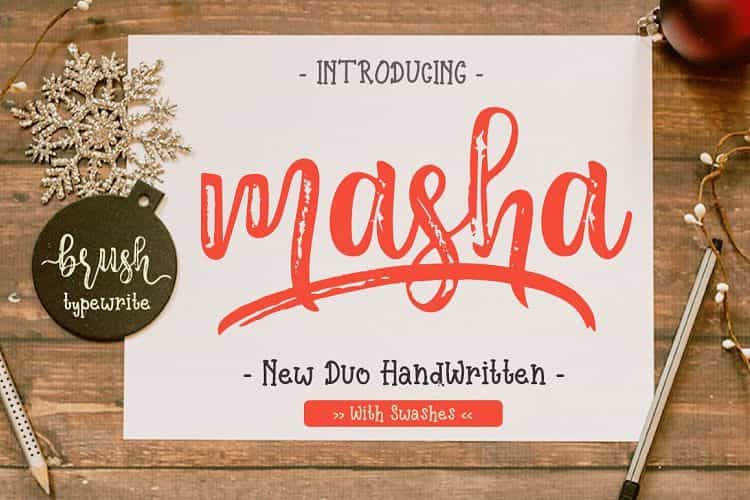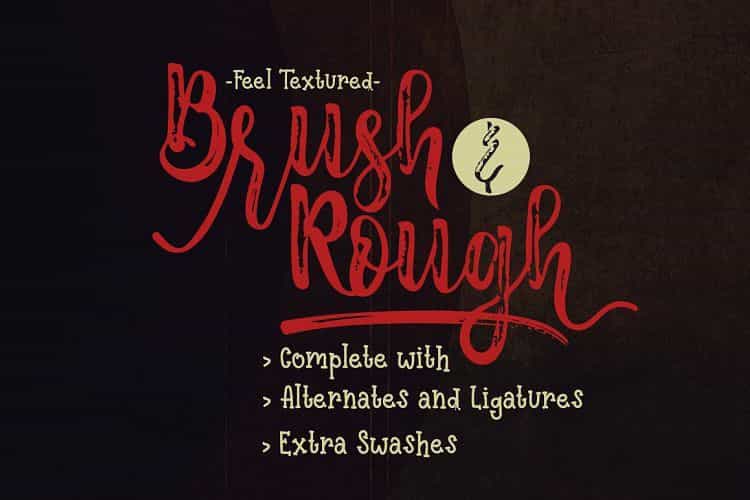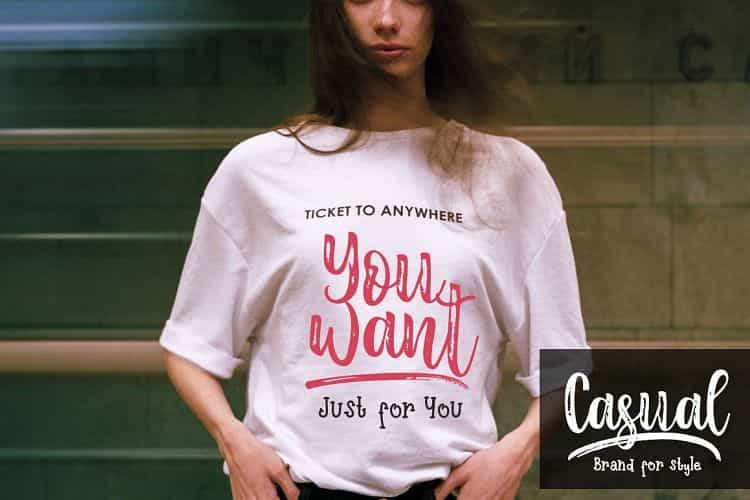
Discover Masha Script Font, part of the Brush Calligraphy collection—a versatile and unique font perfect for adding a personal touch to your projects. Download it for free and enjoy crafting designs with style, from invitations to social media posts. This font is available exclusively for personal use, giving you the freedom to create without limits. Unlock your creativity with Masha Script Font today!
Thank you for verifying Masha Font! A new duo of handlettered fonts is now available, and they are great for any design project. It is produced and shared by Haksen. Masha Script Font is a hand written typeface that has the right features for greeting cards, branding, stationery design, social media, packaging, magazine layouts and prints.